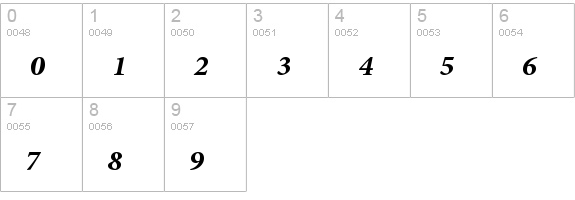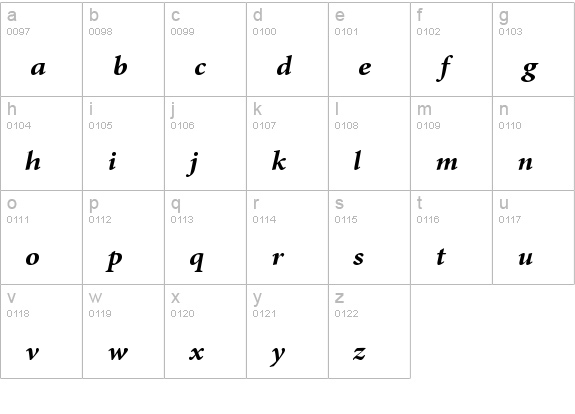
Adobe Arabic Bold Italic Font Details
Adobe Arabic Bold Italic is a strong, high-contrast, italic variant in the Adobe typeface family \xE2\x80\x94 well suited to headlines, attention-grabbing titles, and strong calls-to-action.
Adobe Arabic Bold Italic font is a stunning and elegant typeface that combines the boldness of its weight with the graceful slant of its italics. This font is designed to make a bold statement while maintaining a sense of sophistication and style. Its intricate Arabic calligraphy-inspired design adds a touch of traditional beauty to any text it graces. Best of all, Adobe Arabic Bold Italic font is available for free download at FontsMarket.com. Whether you are looking to add a touch of flair to your design projects or simply want to explore a new font style, this typeface is a perfect choice. Download it today and elevate your typography game with this exquisite and versatile font.